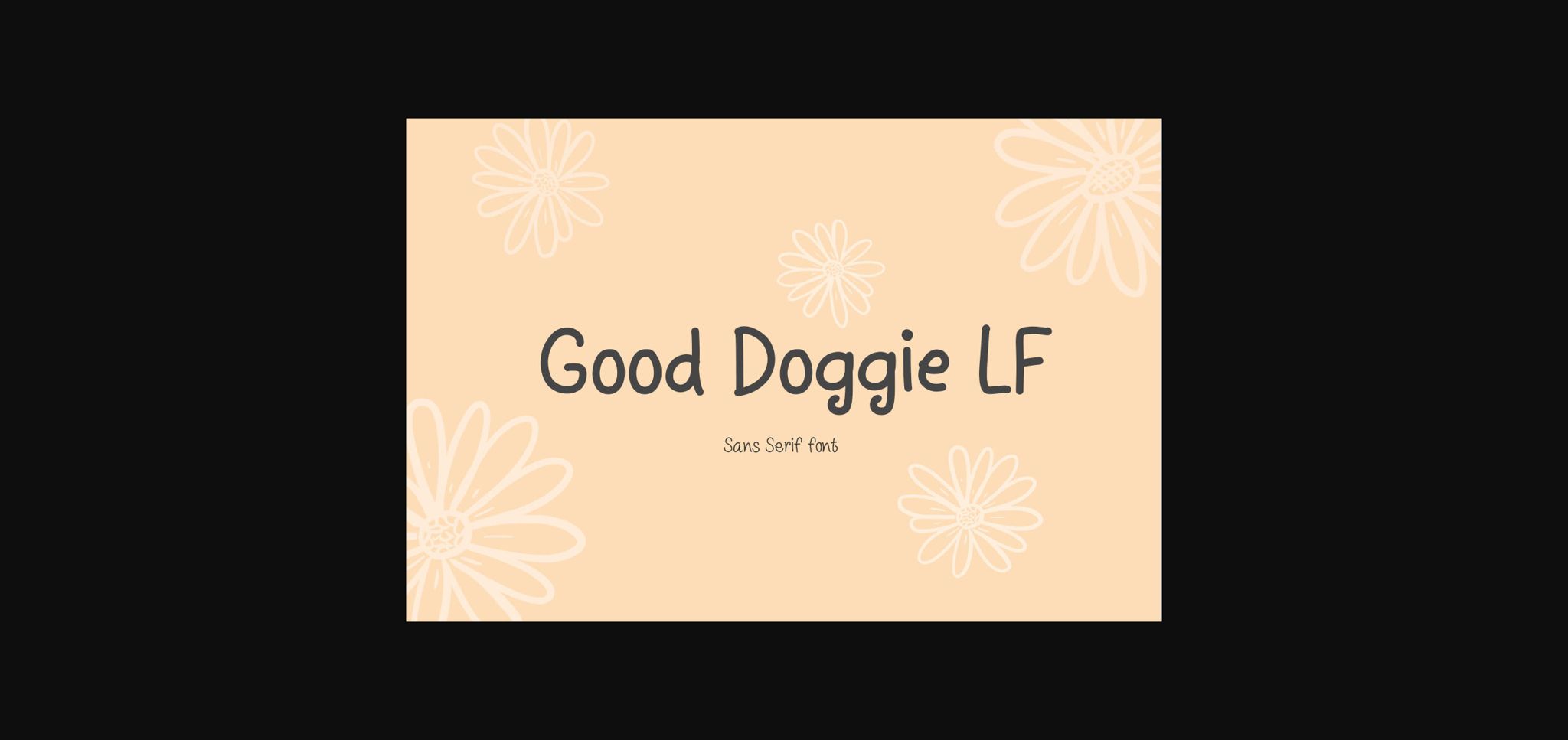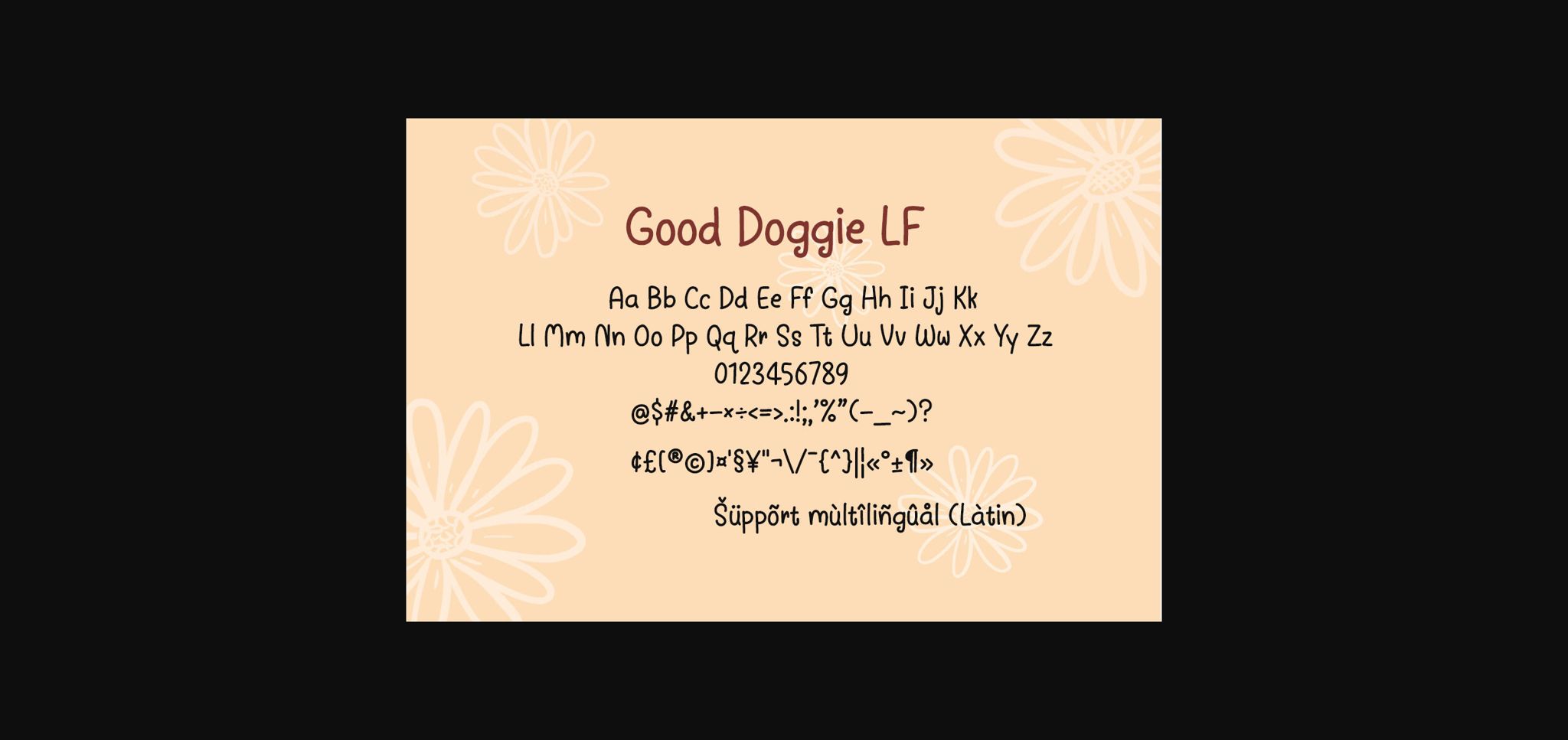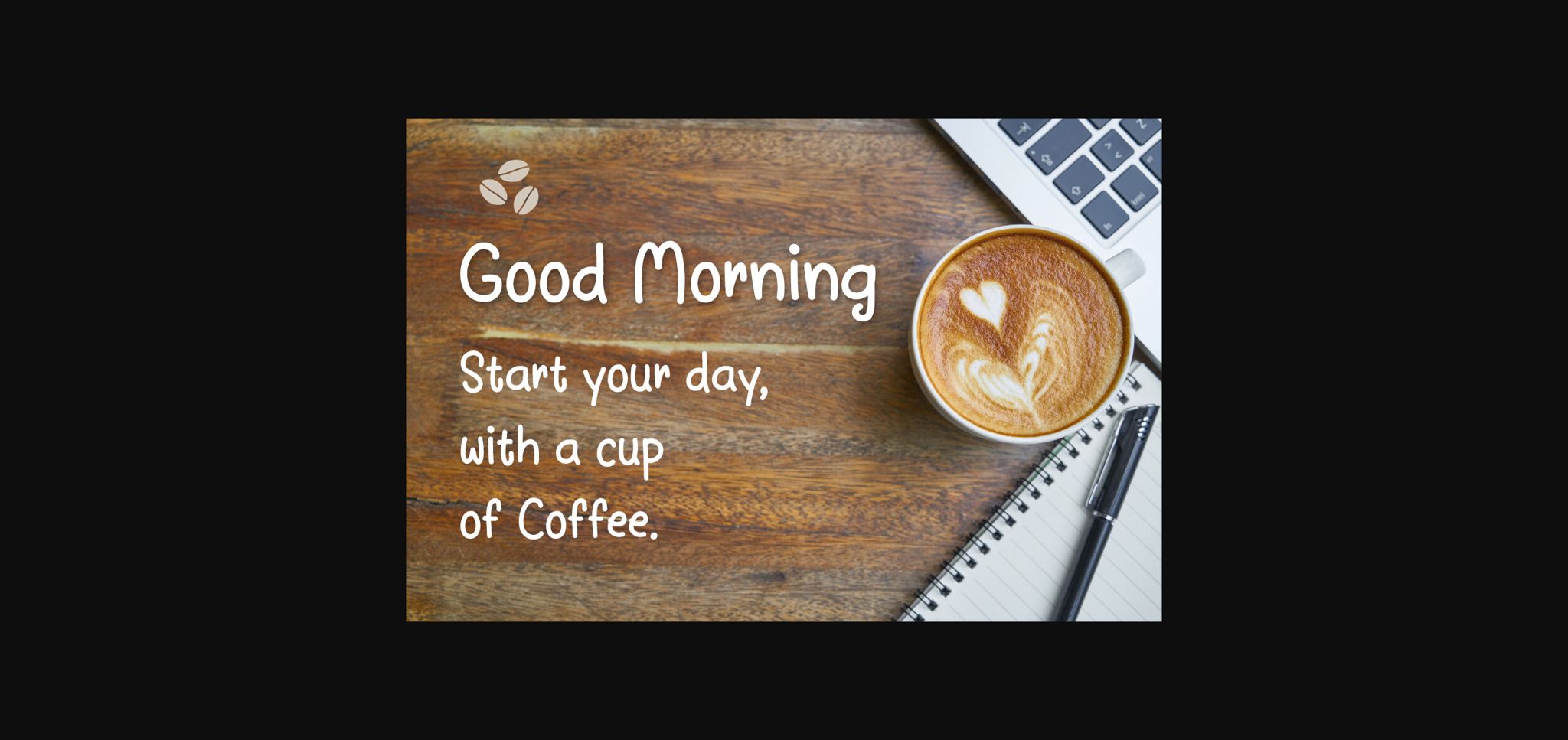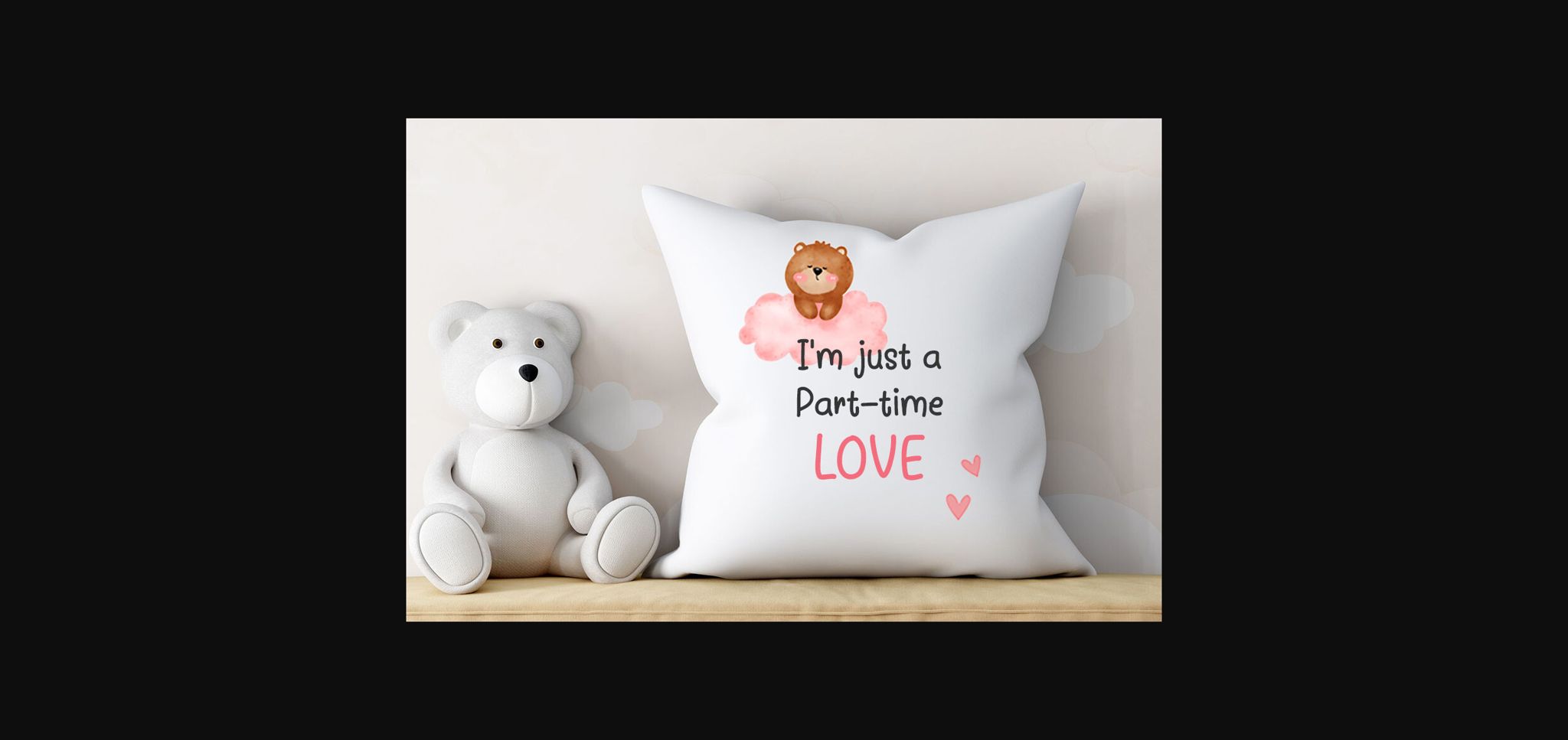
About Good Doggie Lf Font
Good Doggie LF is a cute, minimal, and charming sans serif font. This font is perfect for a wide spectrum of applications such as headlines, branding, and packaging, back-to-school, children-themed designs, party decoration, thank you cards, quotes, logos, posters, blogs, bags, T-Shirt, clothing, and many more!